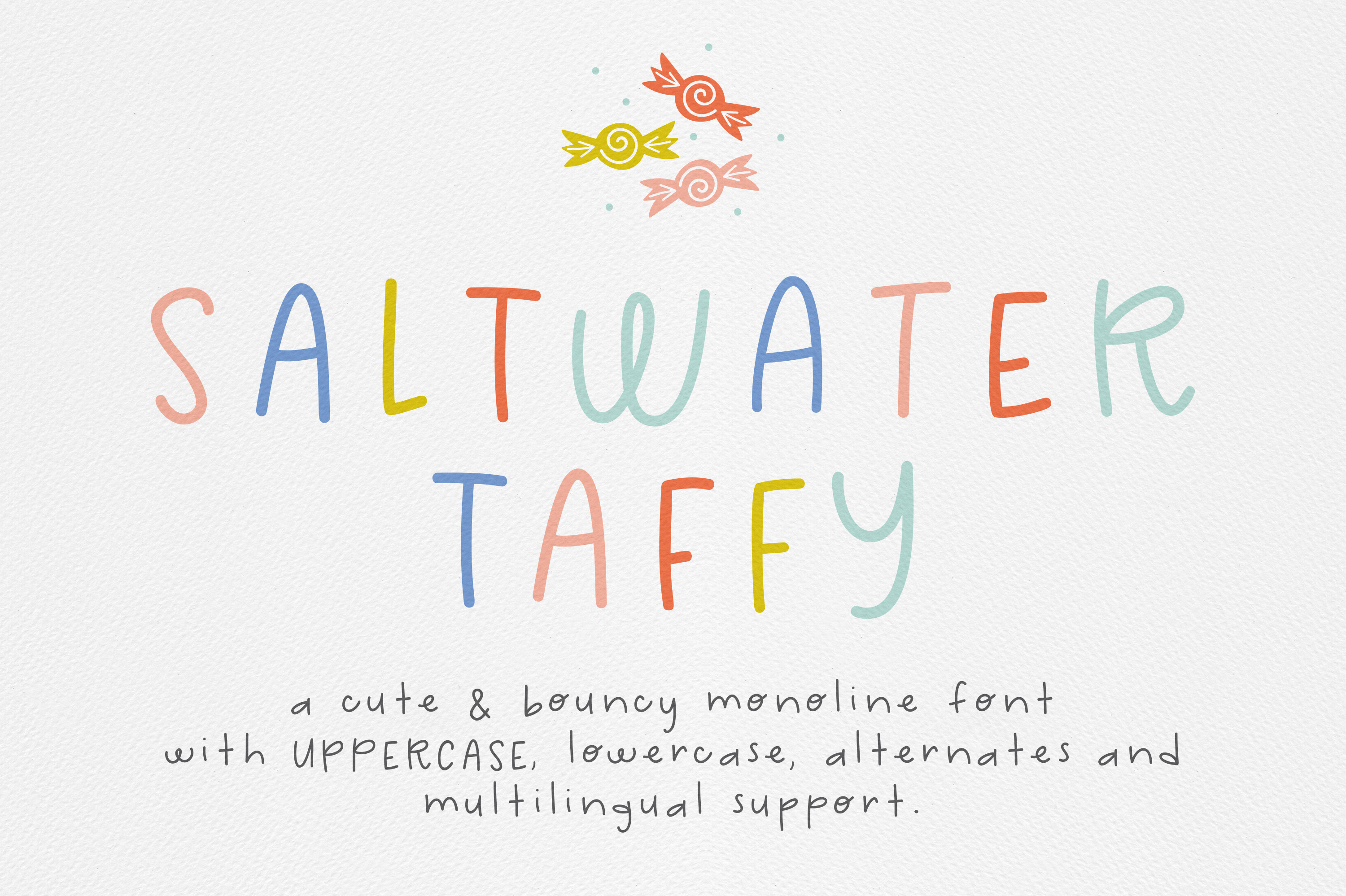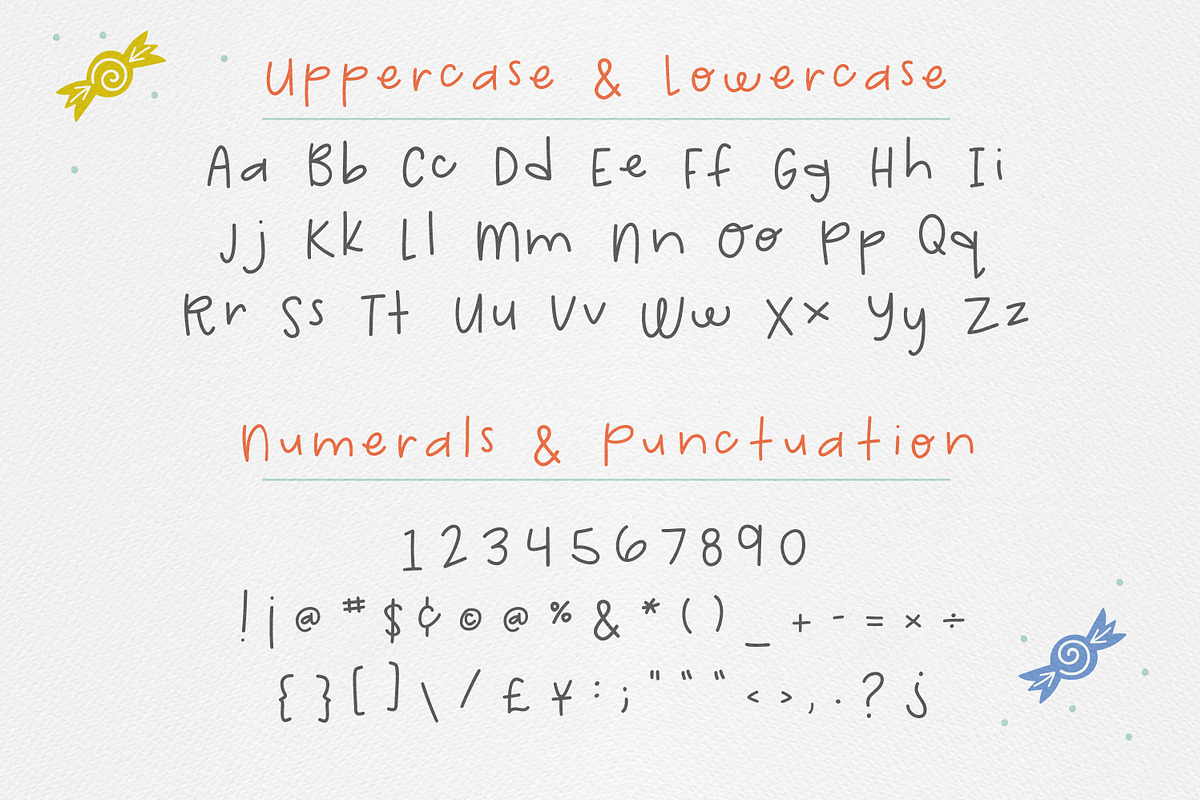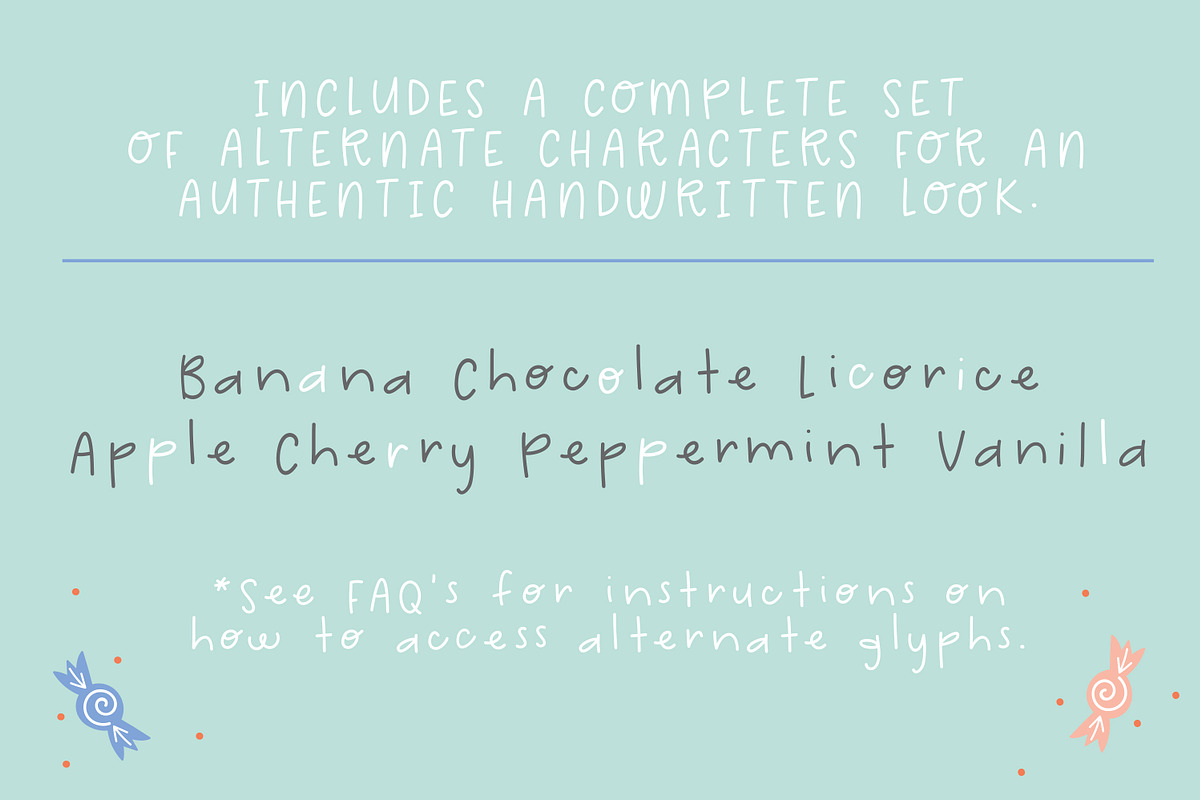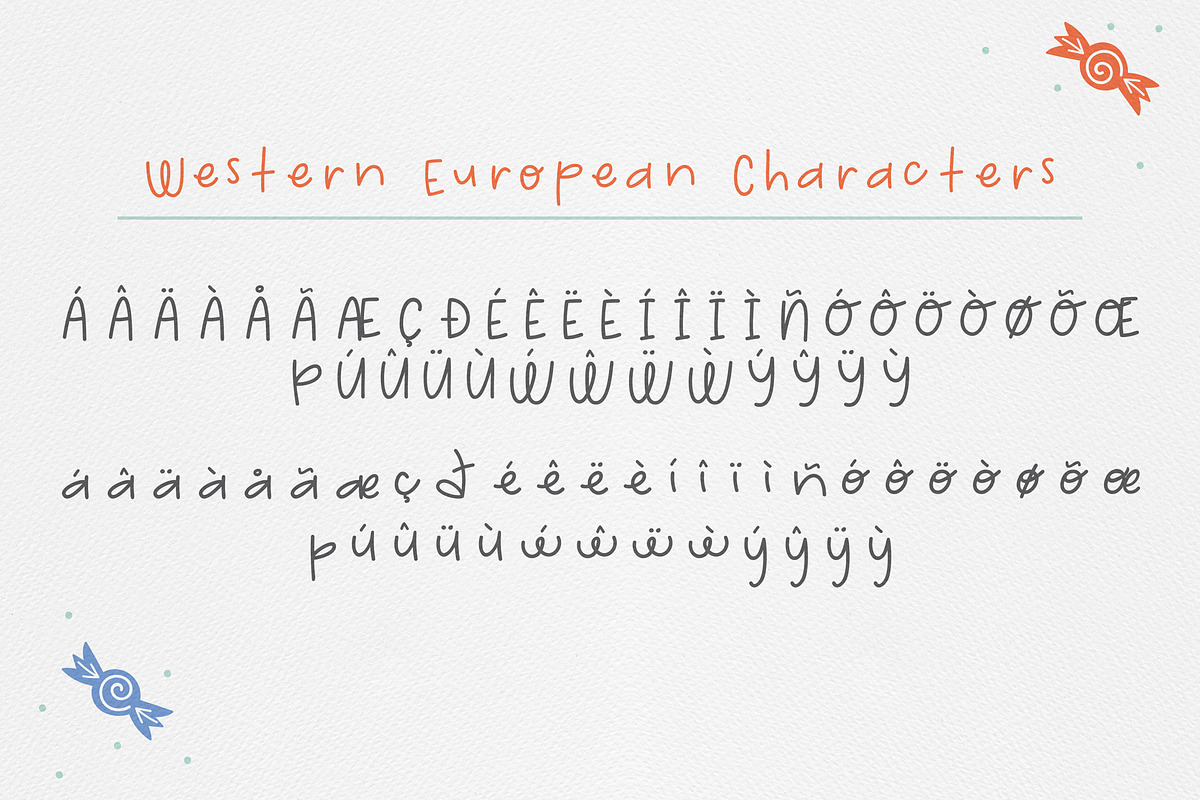
Saltwater Taffy Font
A fun and playful hand-drawn typeface with versatile letters that look great in ALL CAPS or used regularly in sentence case. Perfect for birthday invitations, stationery, kids t-shirt designs, calendars, journals and more!
I love this font, I first found it on looka when I created my business logo and came to find it and buy it so I can use it on organisational docs so our paperwork ties in nicely. I love it, playful and fun but still clear.
Font of the decade! Use it in so many apps, especially Goodnotes, since it's quite close to my own handwriting :)